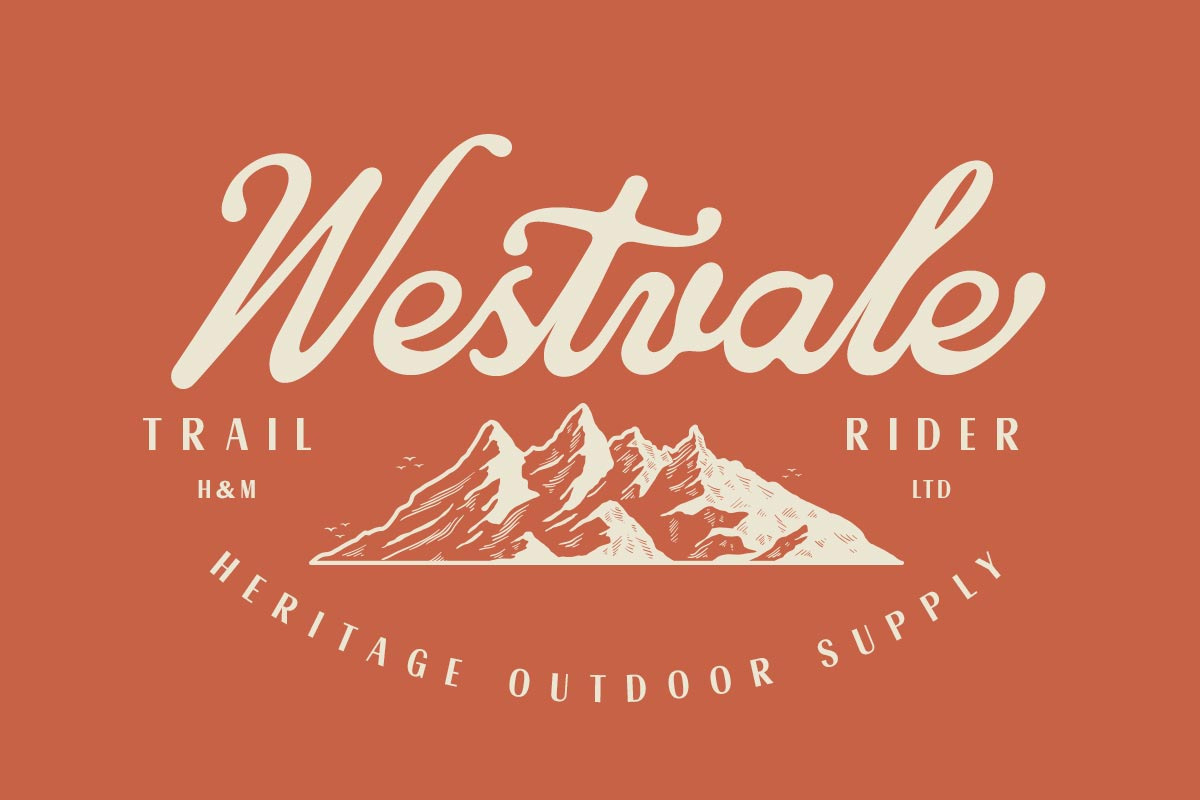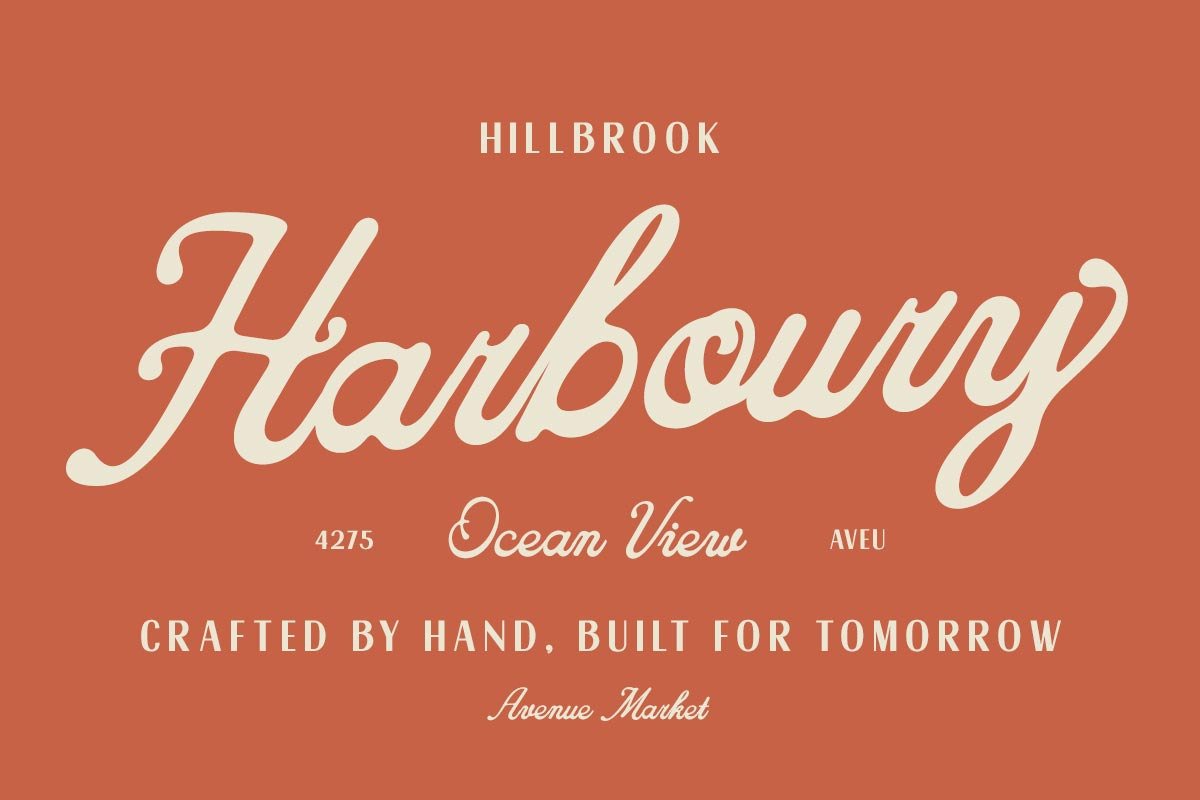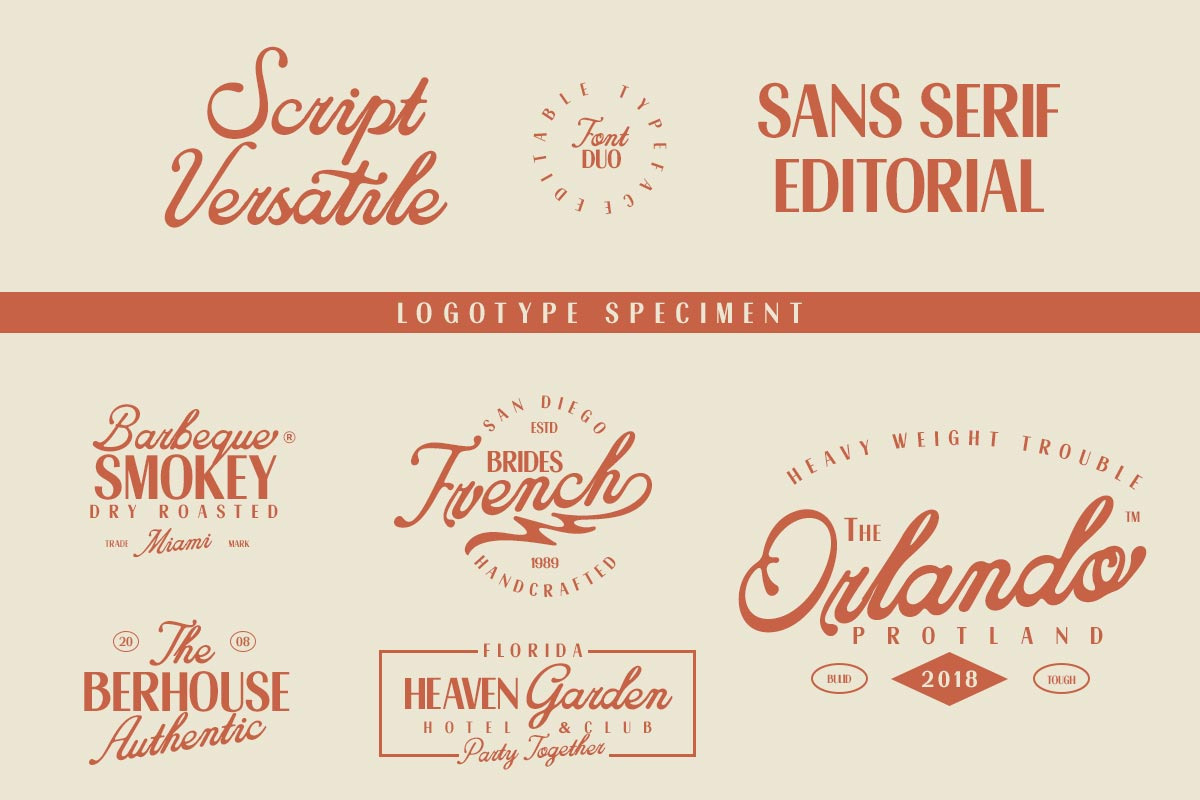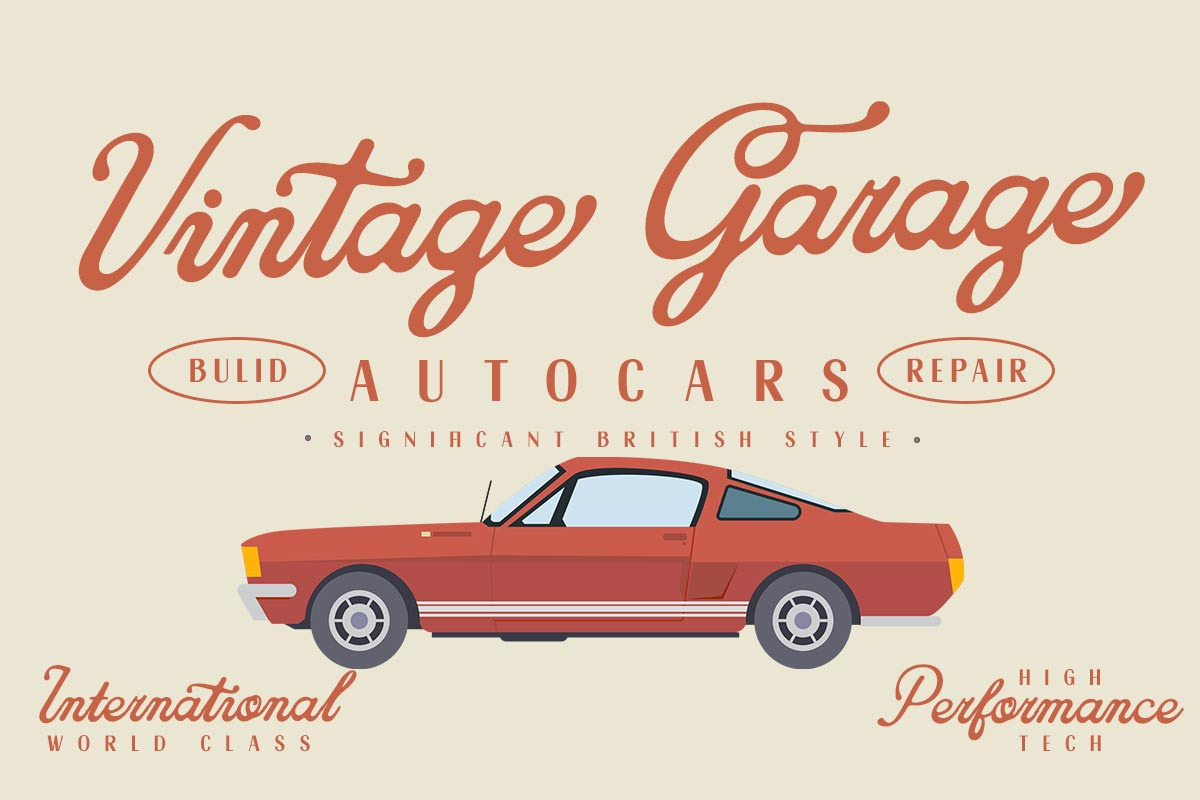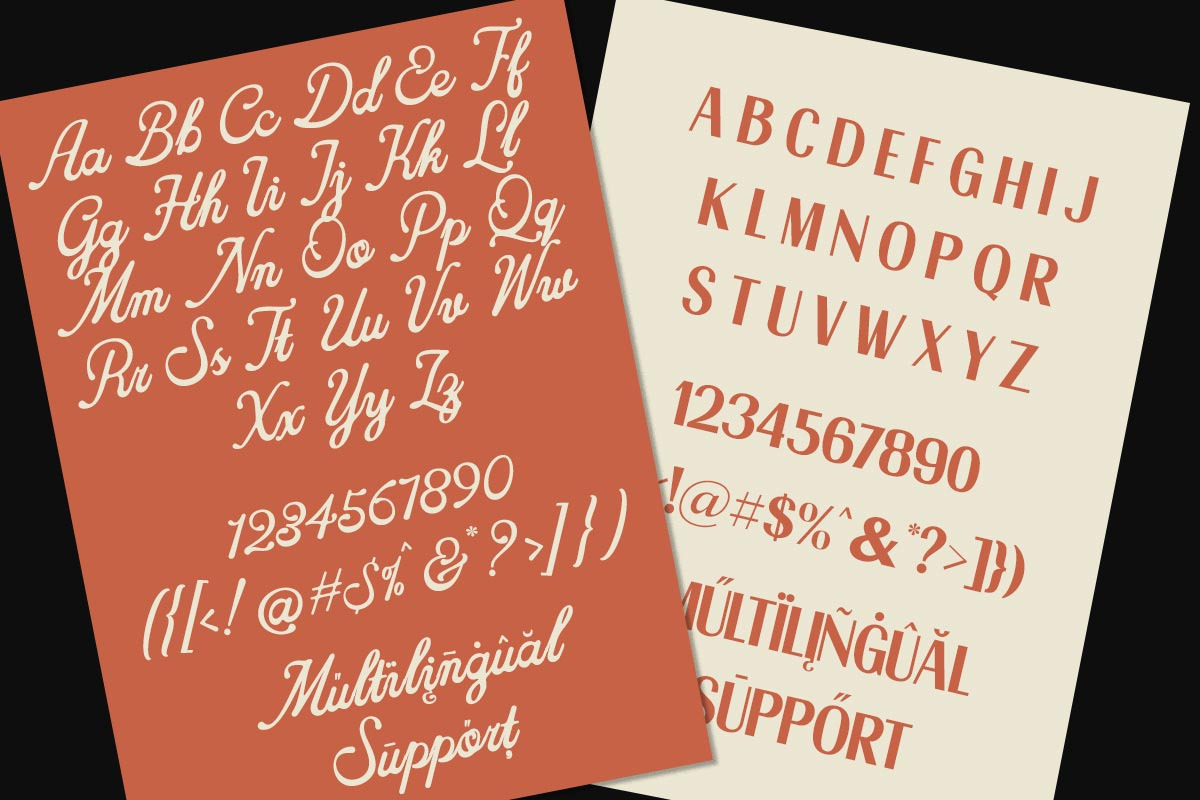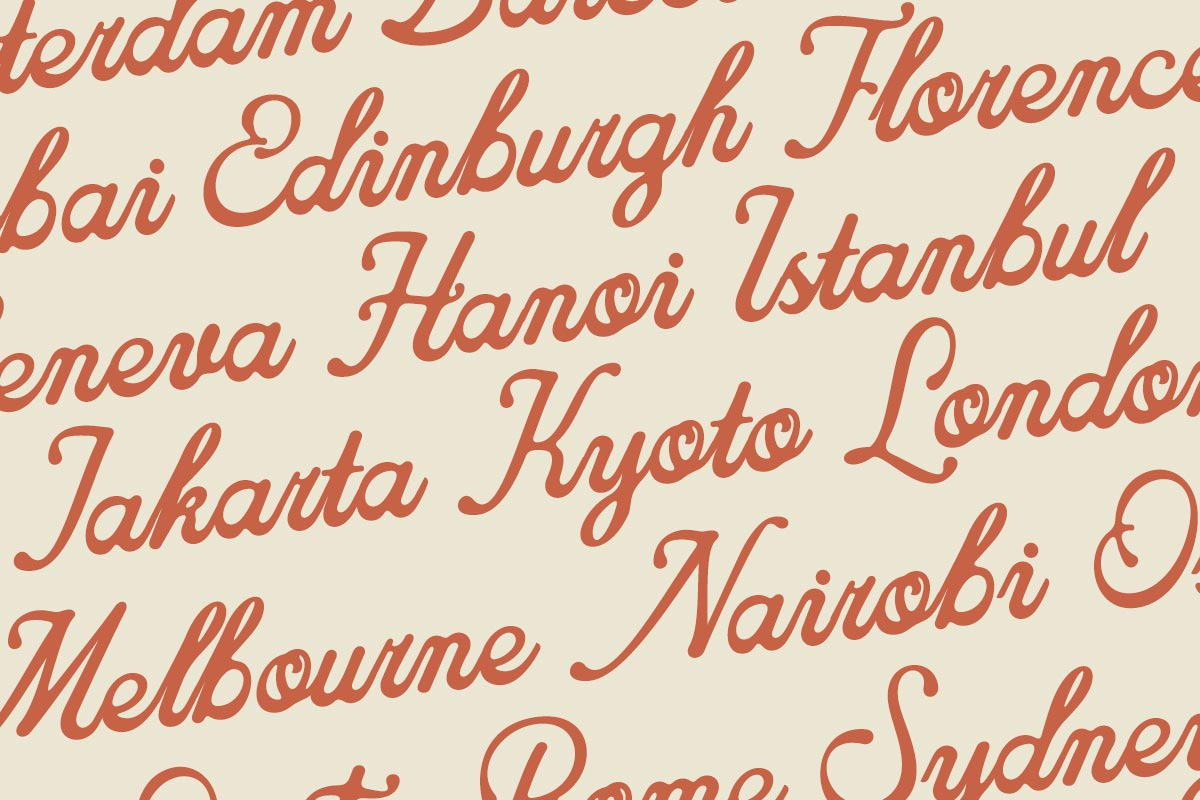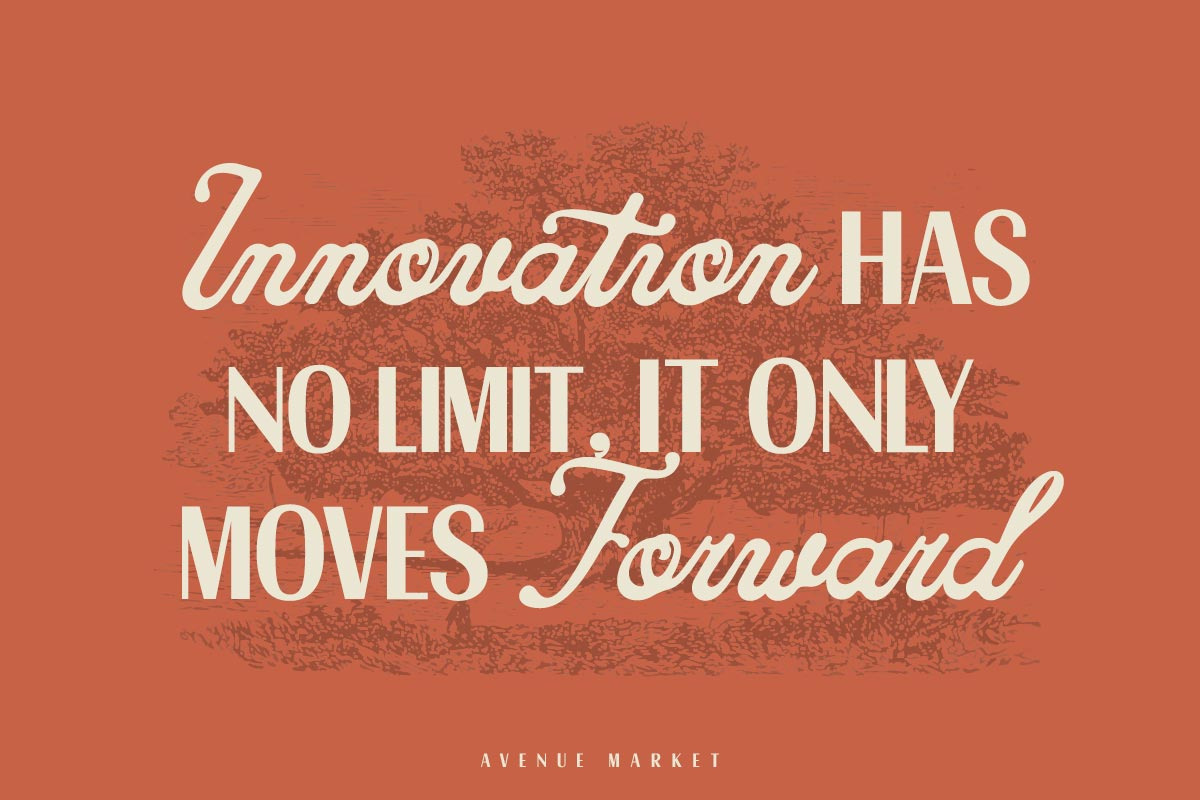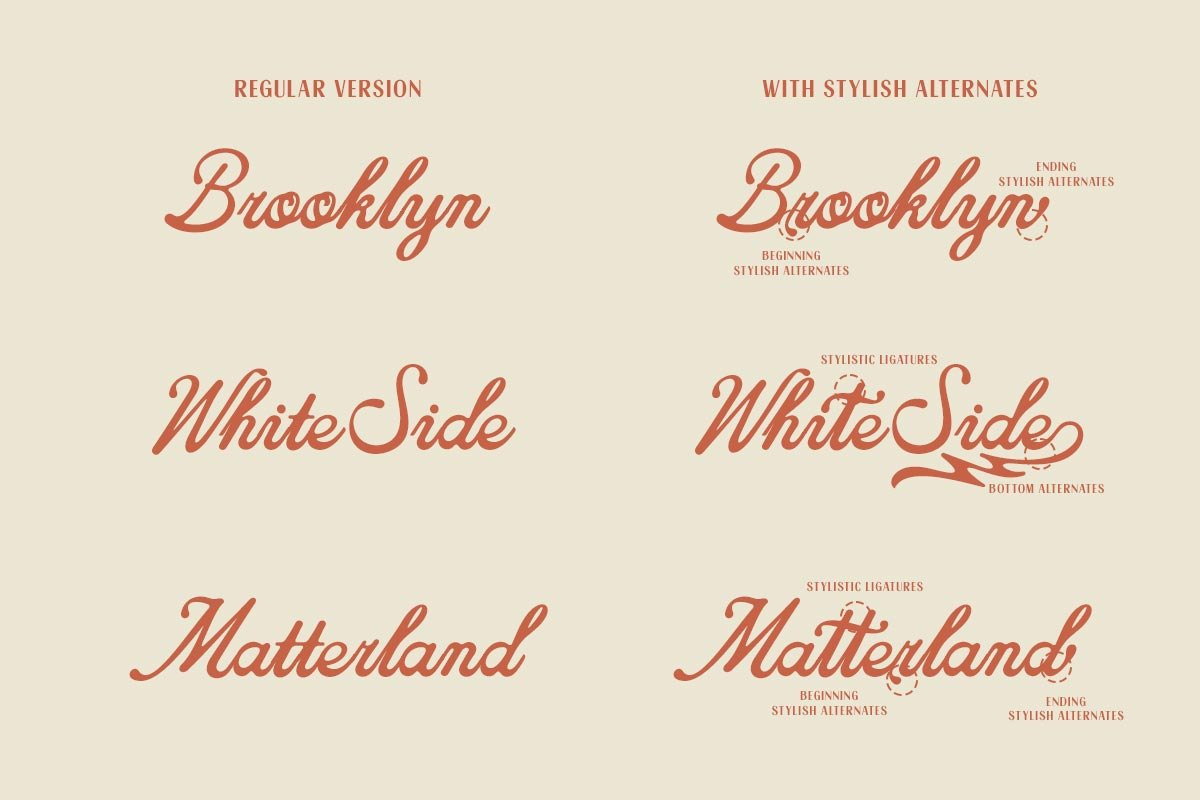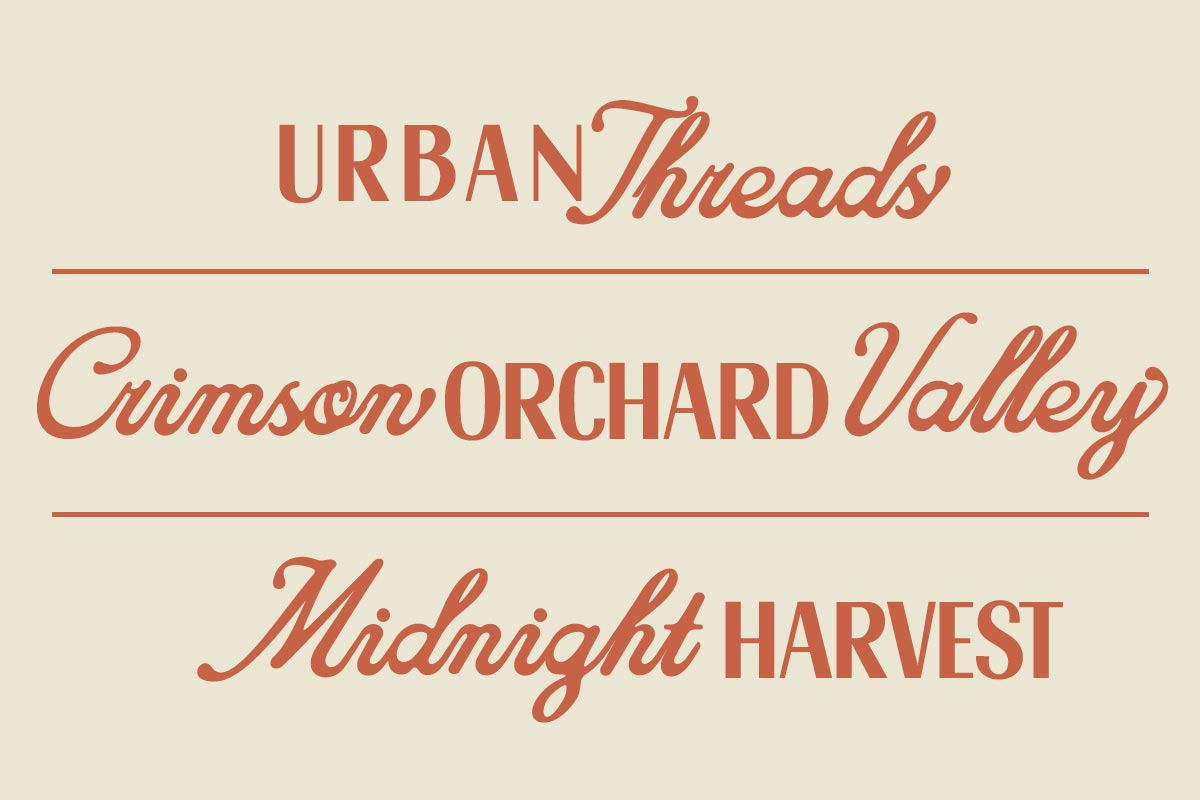
Avenue Market Duo
Introducing Avenue Market, a captivating font duo that blends classic elegance and modern simplicity. This unique combination consists of two complementary typefaces: Script Font: A classic, smooth, and flowing handwriting style, perfect for creating an elegant, warm, and personal feel. Ideal for branding, wedding invitations, quotes, and feminine designs. Sans Serif Font: A capital letter style with a classic, minimalist look. Its clean, versatile design makes it perfect for headlines, logos, and typographic elements that require clarity. Avenue Market is designed to provide flexibility in a variety of design projects. Use this combination to create eye-catching visual contrast. FEATURES: Total Glyphs: Script 416 / Sans Serif 377 Uppercase Letters Lowercase Letters Punctuation and Symbols Ligatures File Types: .otf, .ttf Thank you and good luck.